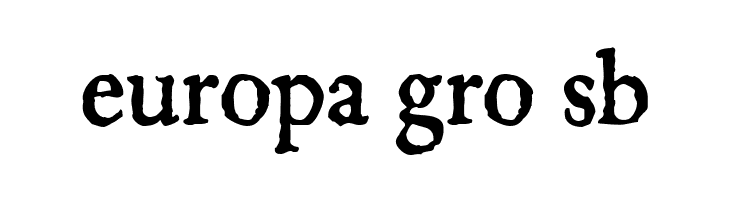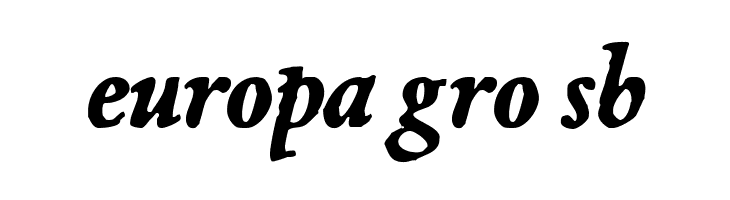
JMHEspinosa-Italic Font
Font by Jorge Morón
Expressive italic font with flowing, cursive letterforms and a handwritten feel.
JMHEspinosa-BoldItalic Font
Font by Jorge Morón
A bold, italic font with dynamic and flowing letterforms, perfect for expressive designs.
JMHEspinosa-Regular Font
Font by Jorge Morón
A bold, hand-drawn font with a vintage, textured appearance.